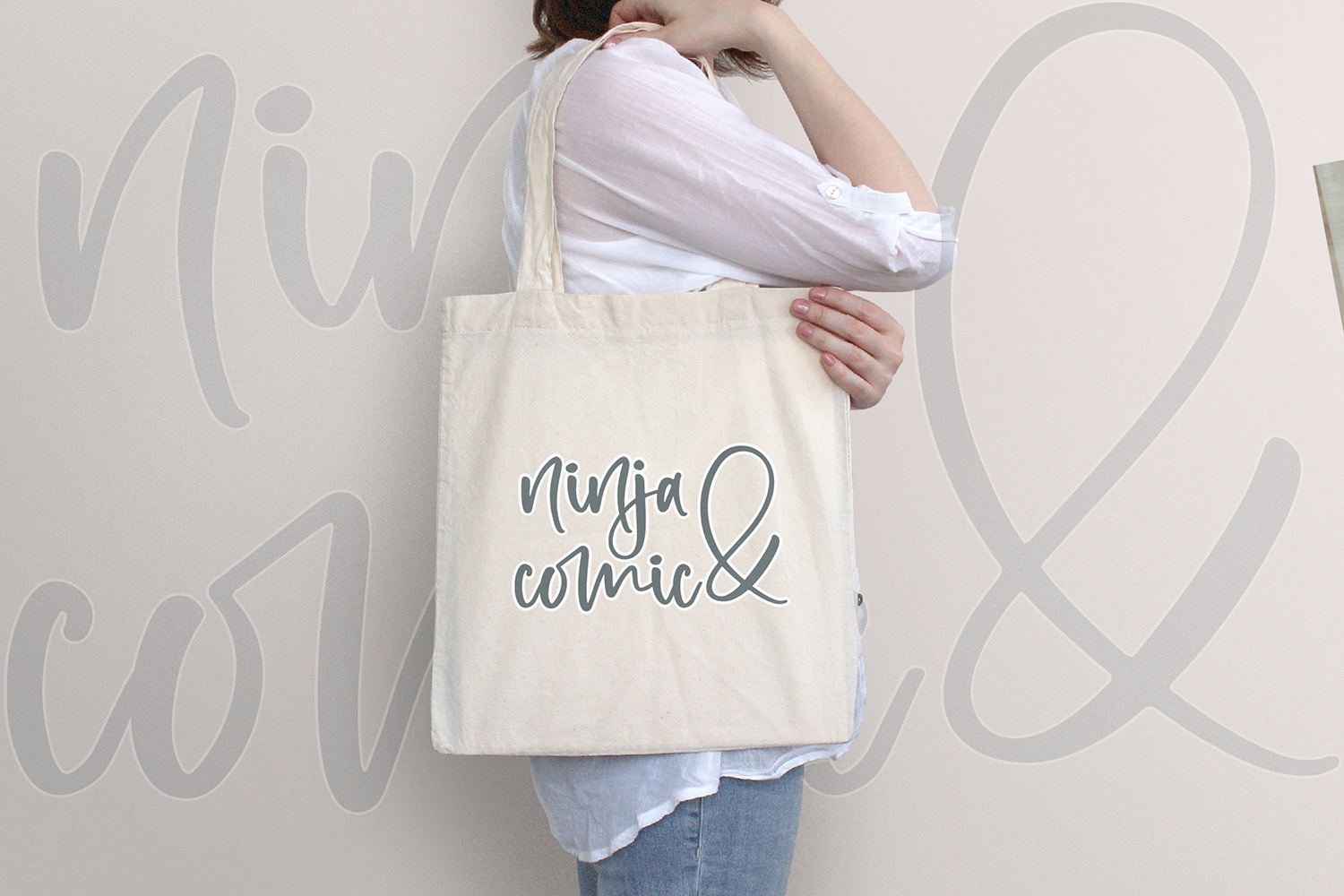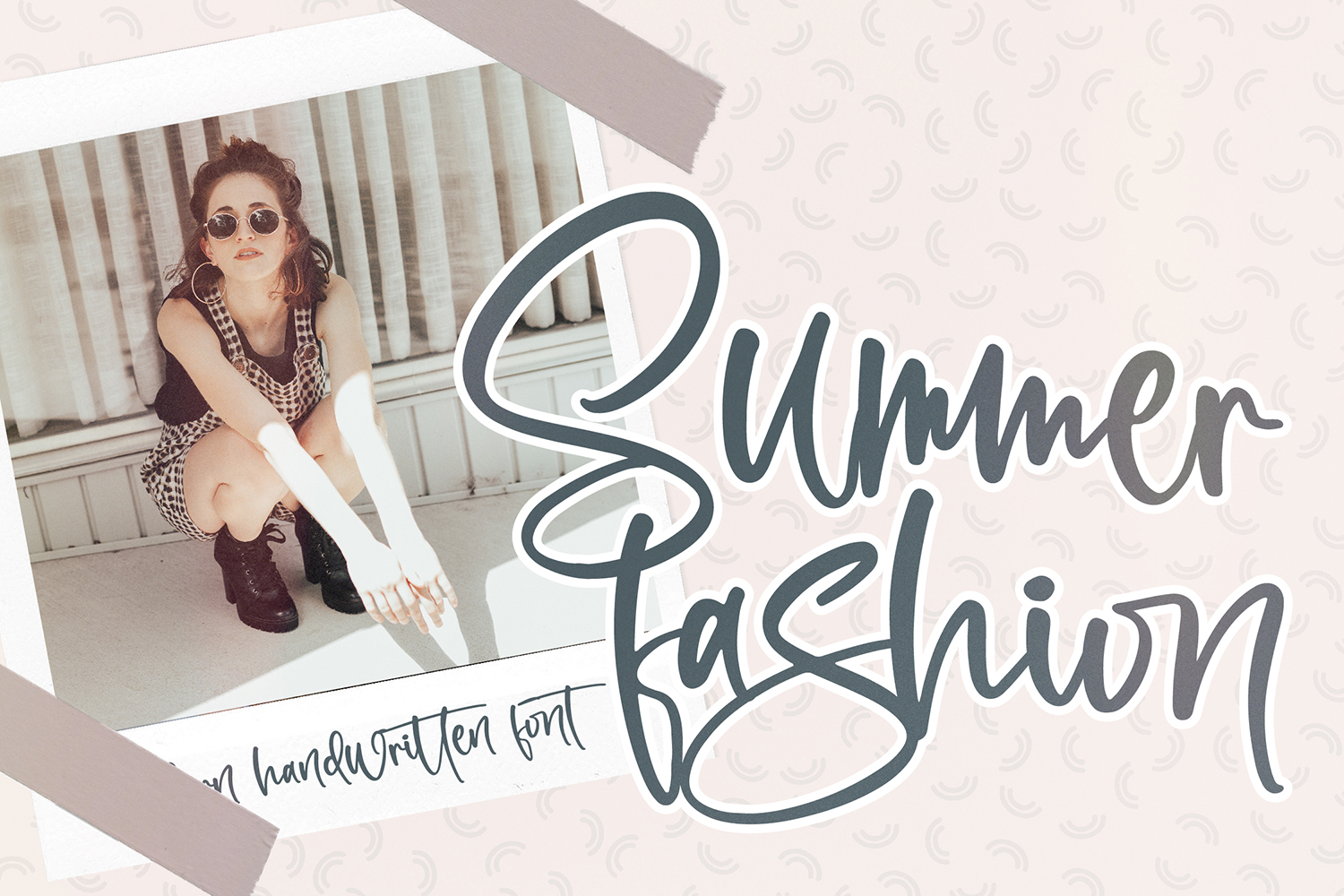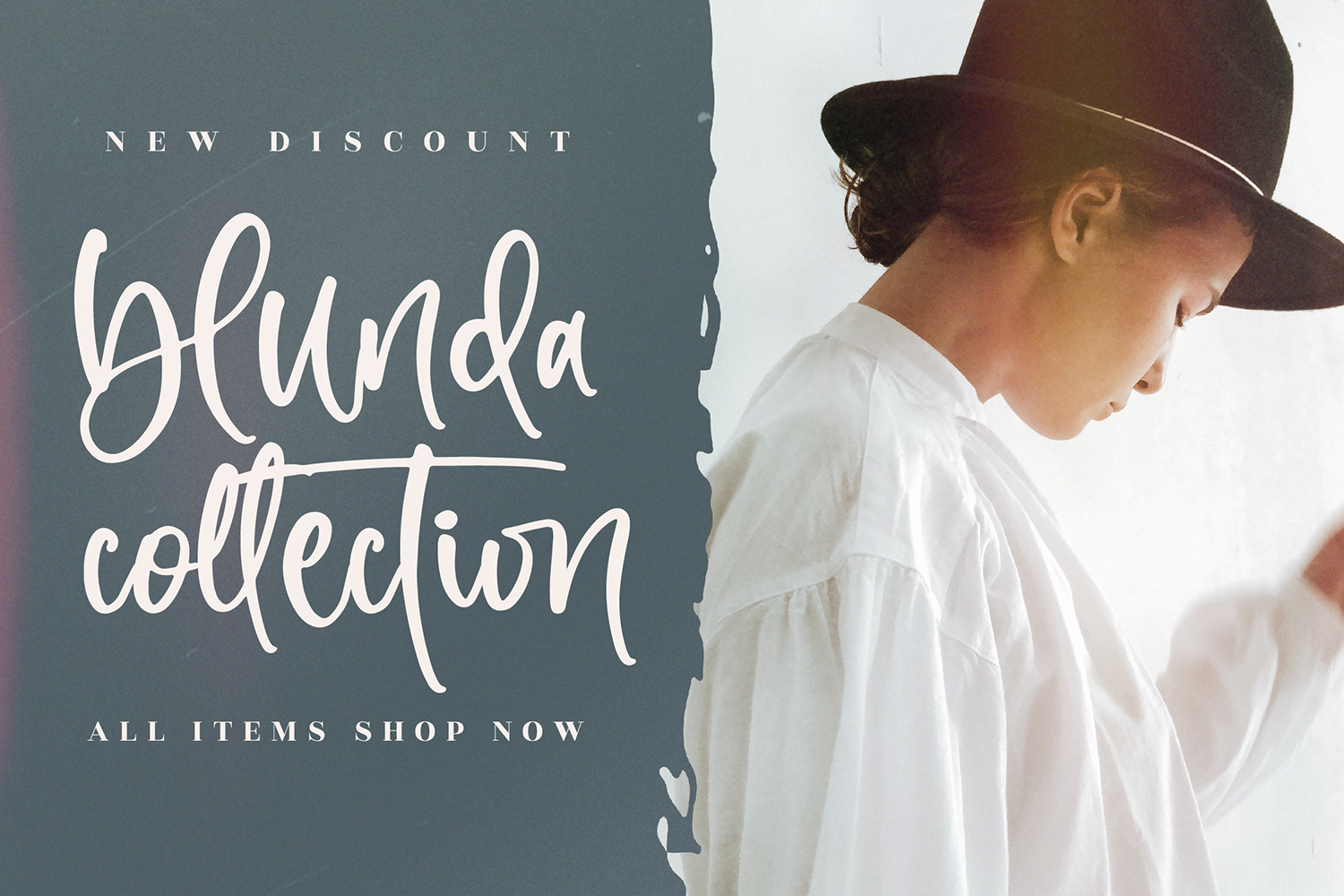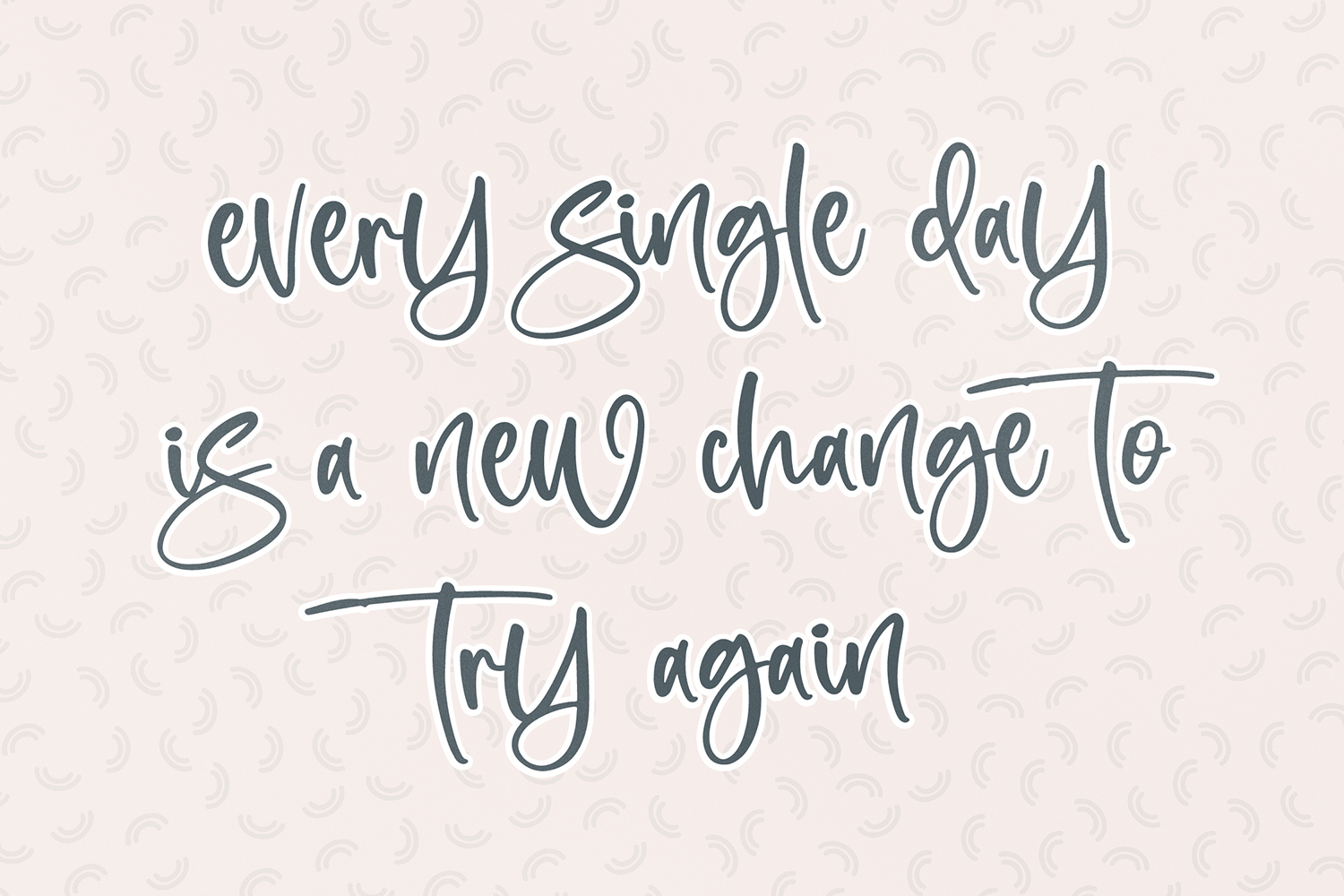
Bluetank Free Font
Introducing Bluetank Free Font – a delightful script font adorned with charming and playful characters that gracefully dance along the baseline. Embrace the beauty of Bluetank in your creative endeavors and witness how it magnificently enhances and elevates your ideas, making them truly stand out from the crowd. Let Bluetank infuse your designs with its lovable allure. This free typeface was designed by a talented Afterpaper Studio. If you like it don’t forget to check out the full version.